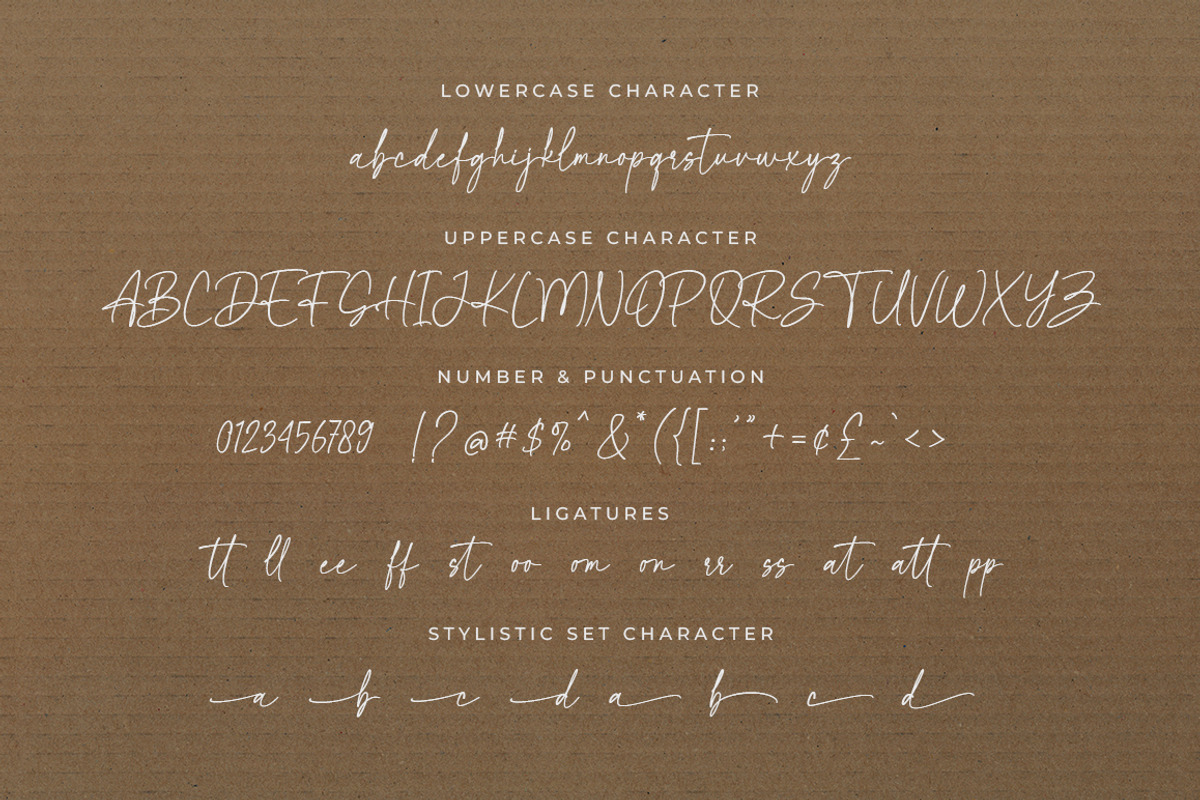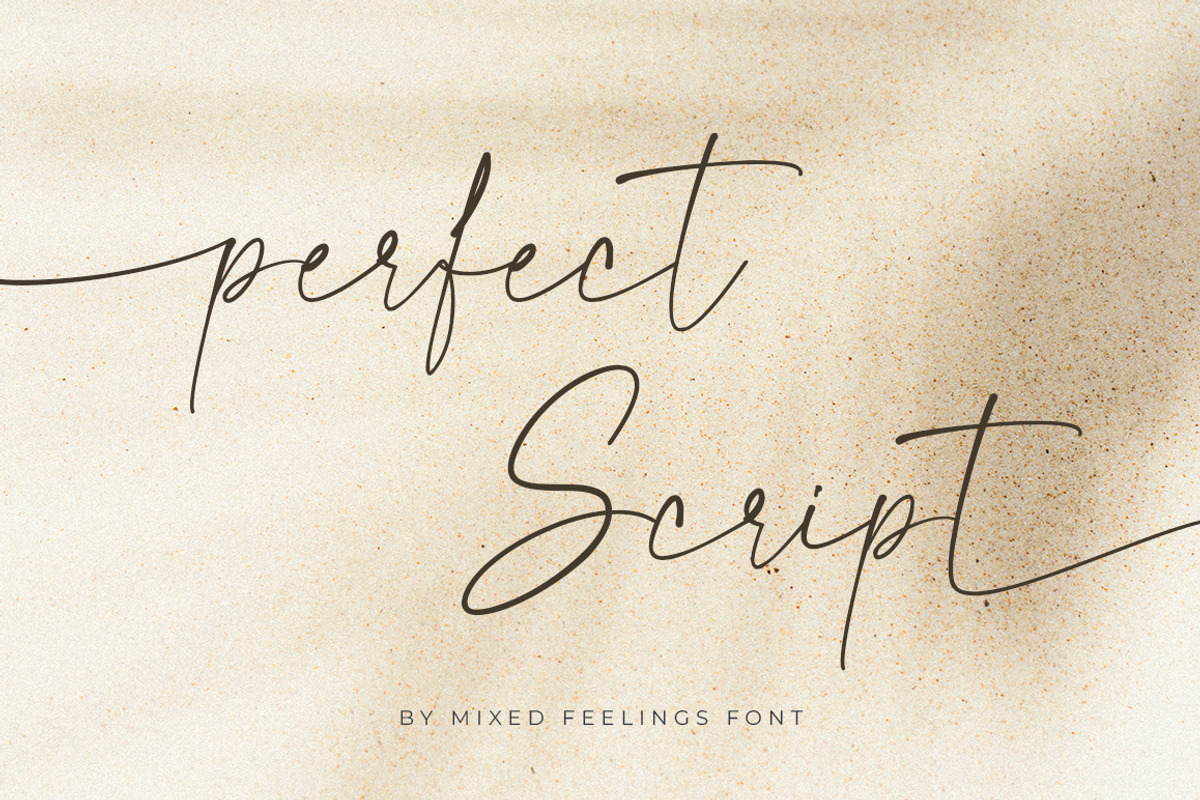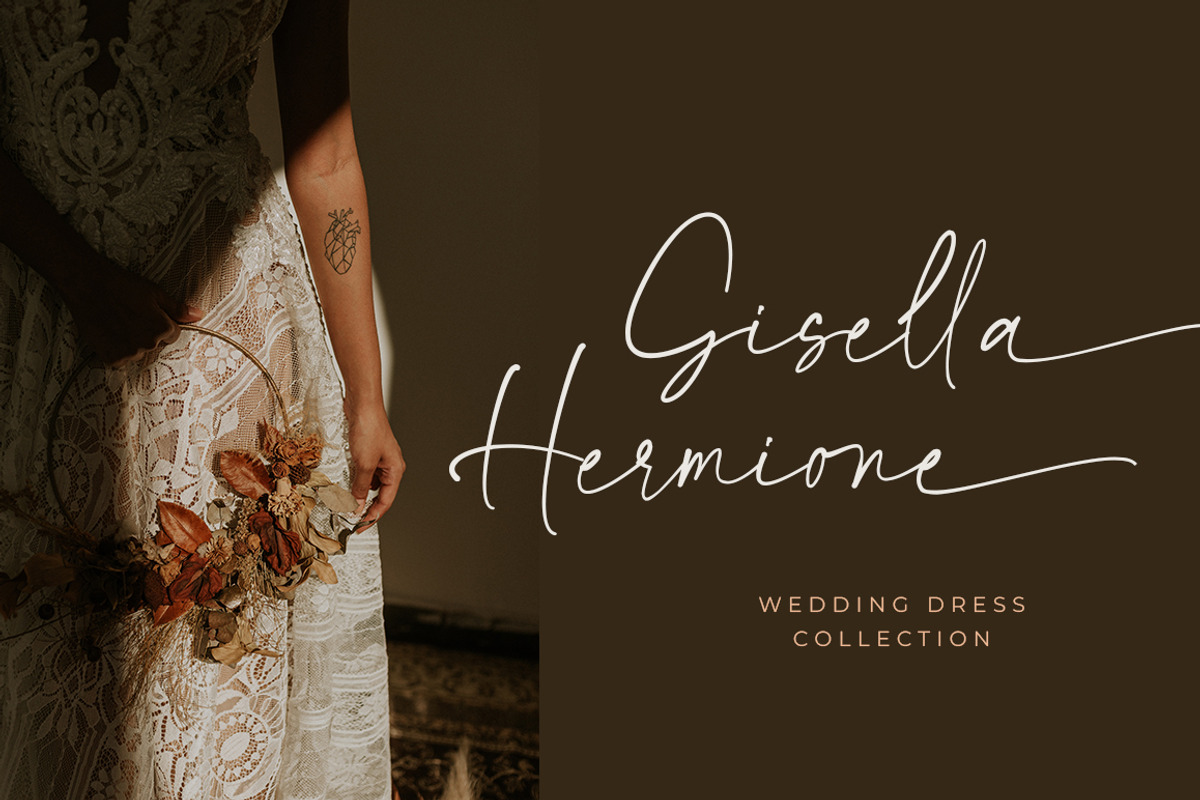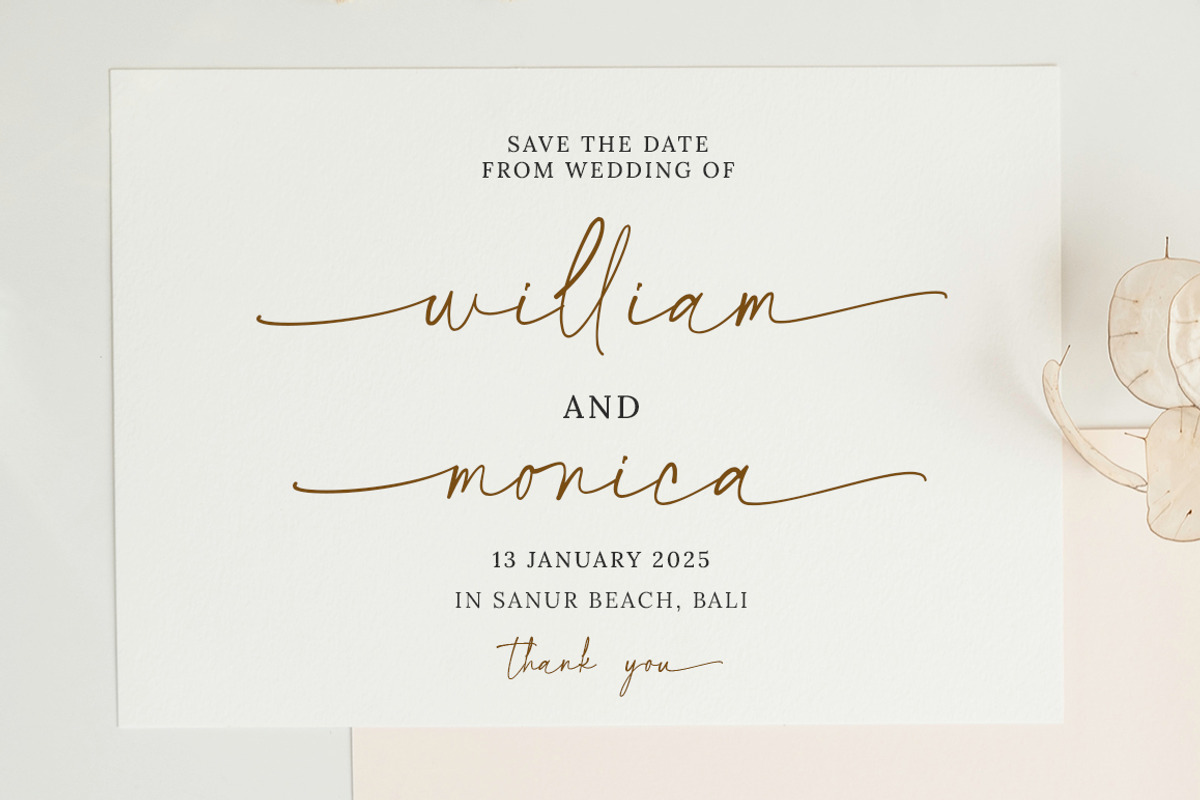
Mixed Feeling - Handwritten Script
Introducing Mixed Feelings - Sweet Handwritten Font
Mixed Feelings is a sweet font that is written by hand, has elegant and beautiful curves. this font is PUA encoded, which means you can access all of the glyphs with ease!
This font is perfect for use on weddings, business card, logotype, magazines, quotes, fashion, watermarks, invitations.
- Stylistic Set
- Number & Punctuation
- Support Multilingual Languange